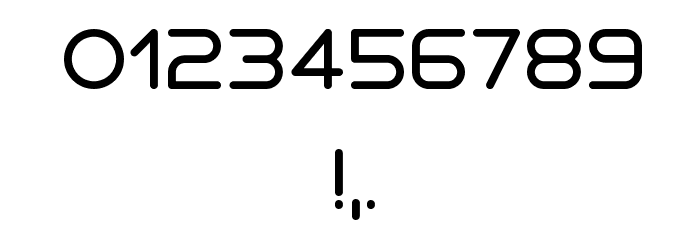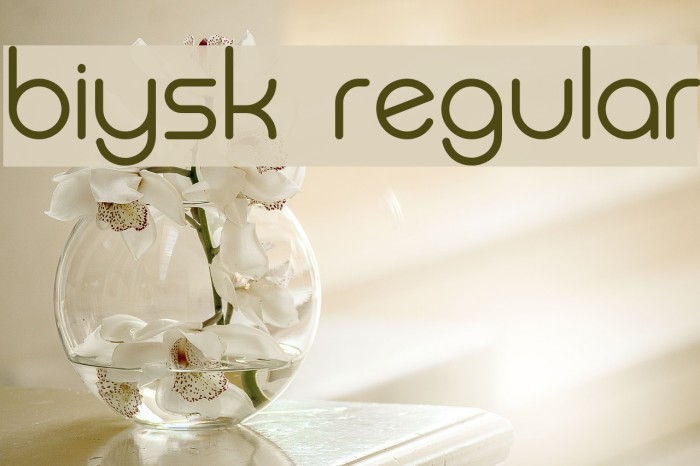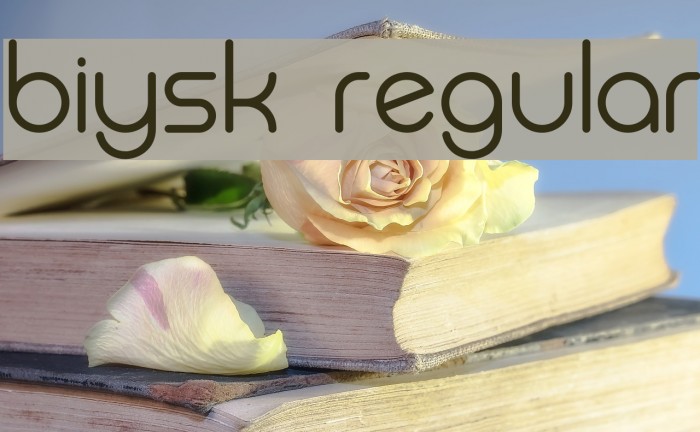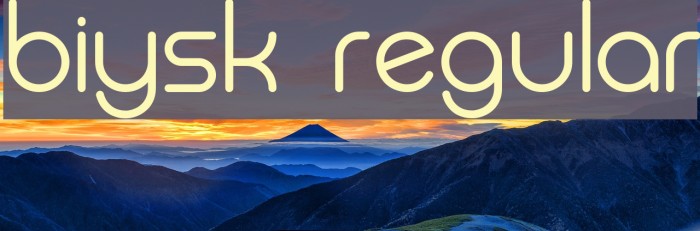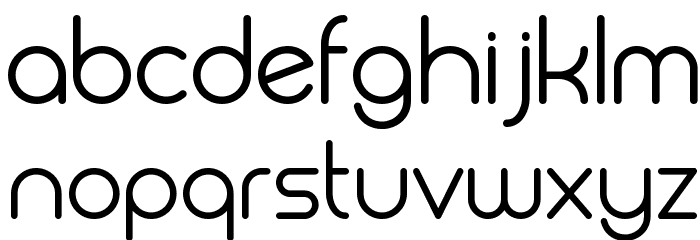
Biysk Regular Font
Biysk Regular Description
This font features a modern, rounded sans-serif style with smooth curves and a clean appearance. The characters are uniform in width, giving it a monospaced feel, although it is not strictly monospaced. The lowercase letters have a consistent height, and the uppercase letters are slightly taller, maintaining a balanced look. The numerals are clear and easy to read, matching the overall style of the alphabet. The special characters are simple and integrate seamlessly with the rest of the font. This font is versatile, suitable for both digital and print media, and can be used in a variety of design projects.
A modern, rounded sans-serif font with smooth curves and a clean, uniform appearance from Uncategorized fonts.
• Proposed Projects: Ideal for digital interfaces, branding, advertising, and editorial design.